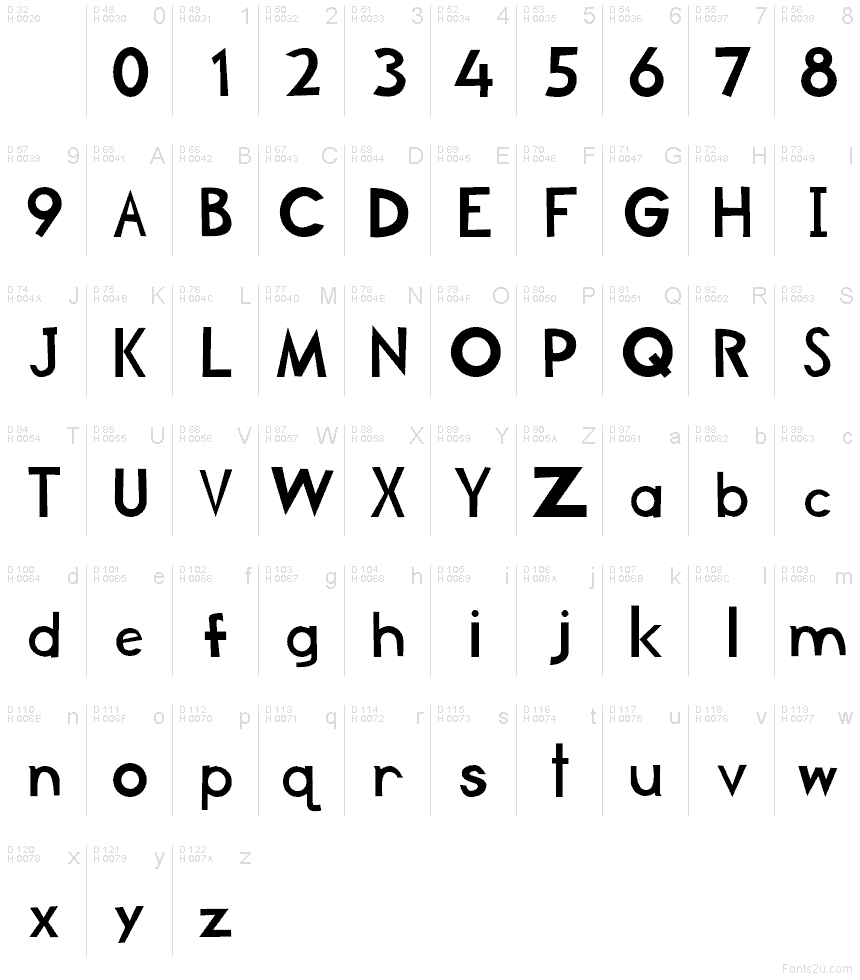
Speckqtograph
Speckqtograph font by Zach S is a free regular comic display font. It stands out with smooth, inky strokes and circular counters that feel delightfully hand‑drawn without getting messy. The rhythm is jaunty but controlled, giving headlines bounce and clarity at the same time—friendly, readable, and just quirky enough to feel human.
Using Speckqtograph, you’ll get lively energy for kids’ book covers, snack packaging, casual logos, game UI menus, event posters, and social banners. This free font holds up at medium to large sizes, especially with a touch of extra tracking. Pair it with a clean geometric sans for body copy to keep the playfulness grounded and the message crisp.